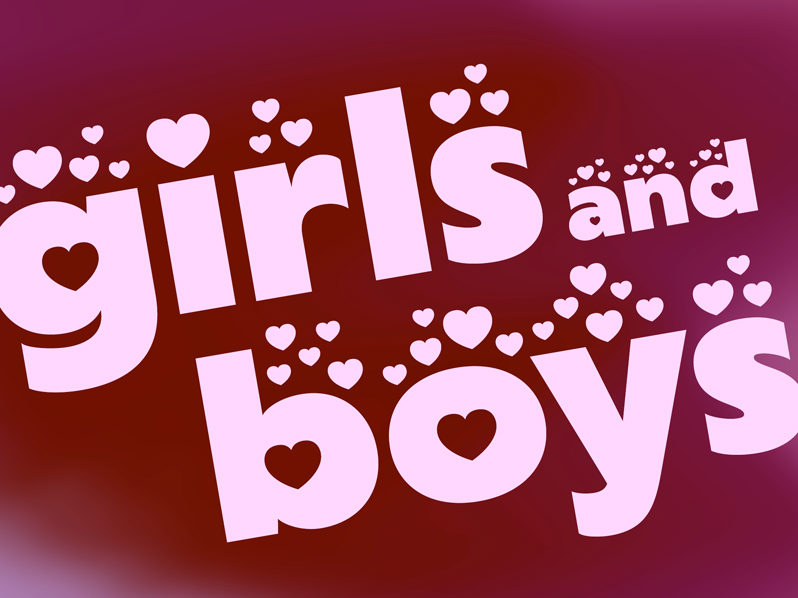
"Lovebeat" is a heart decorated Valentines font, with 600+ glyphs, including: - A-Z, a-z, 0-9, accents, punctuation and symbols - Stylistic alternates - Ligatures Try it out for free with this sample version! For the full public/commercial version, please visit: https://www.anitajuergeleit.de |